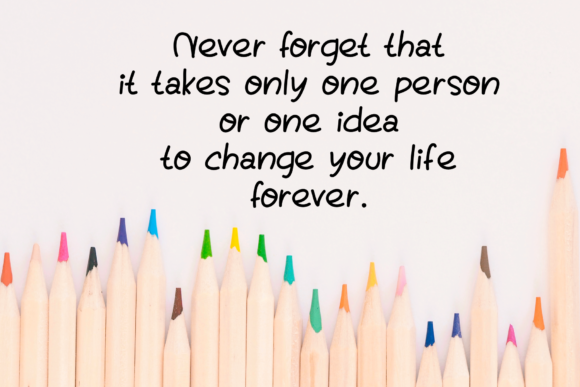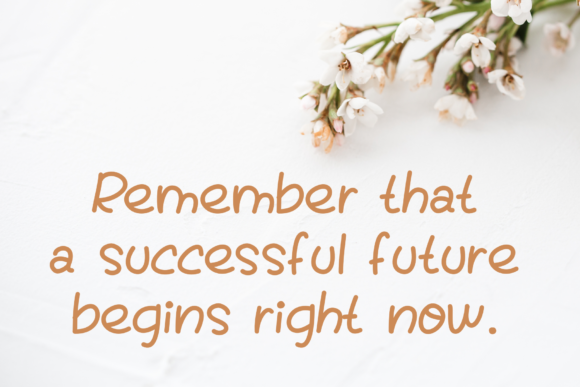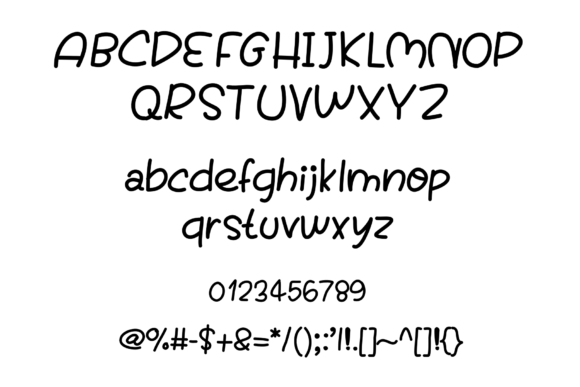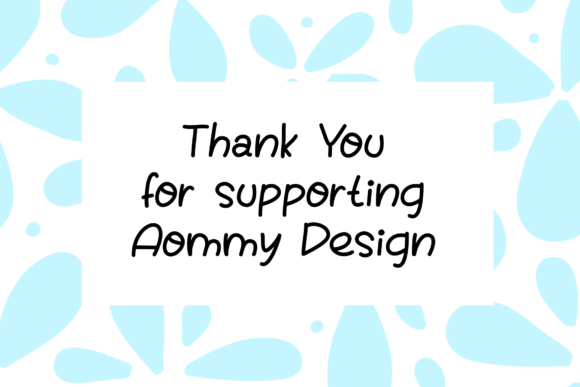
Jasmine Font
About Jasmine Font
Jasmine is a simple and cute handwritten font. Its natural and unique style makes it incredibly fitting to a large pool of designs. The only limit is your imagination!